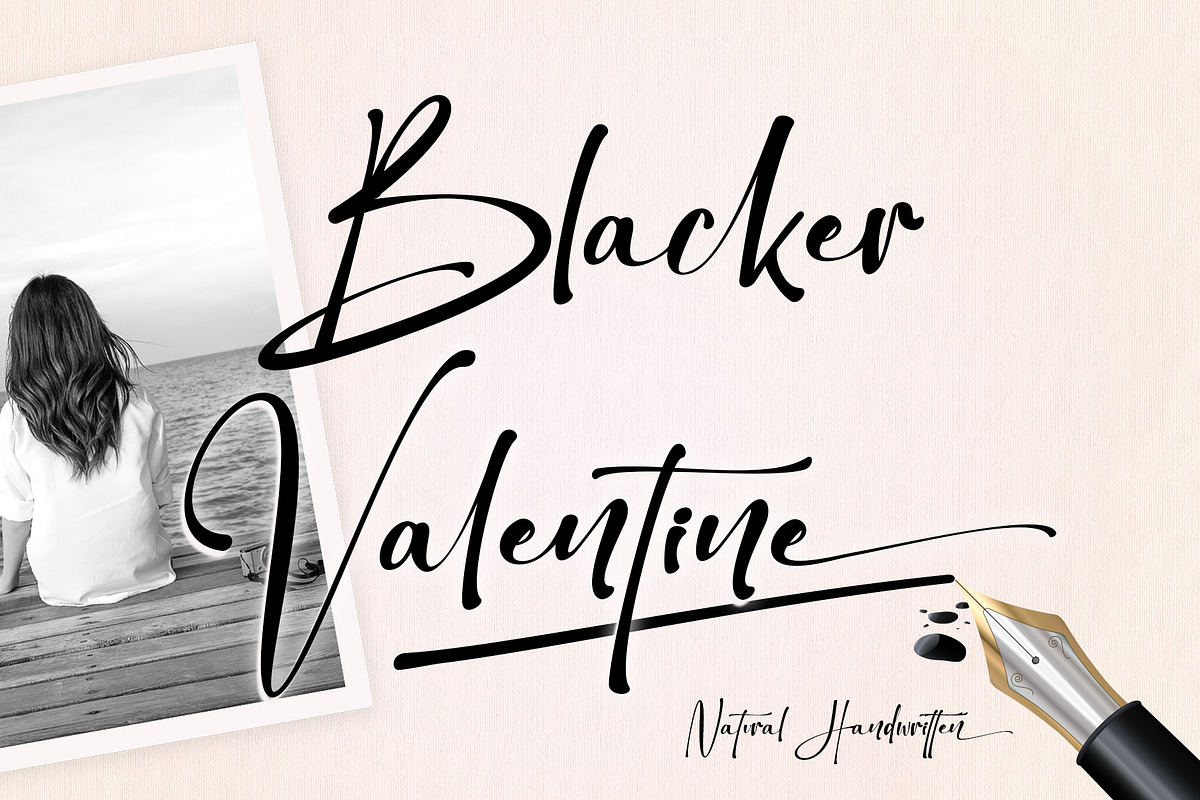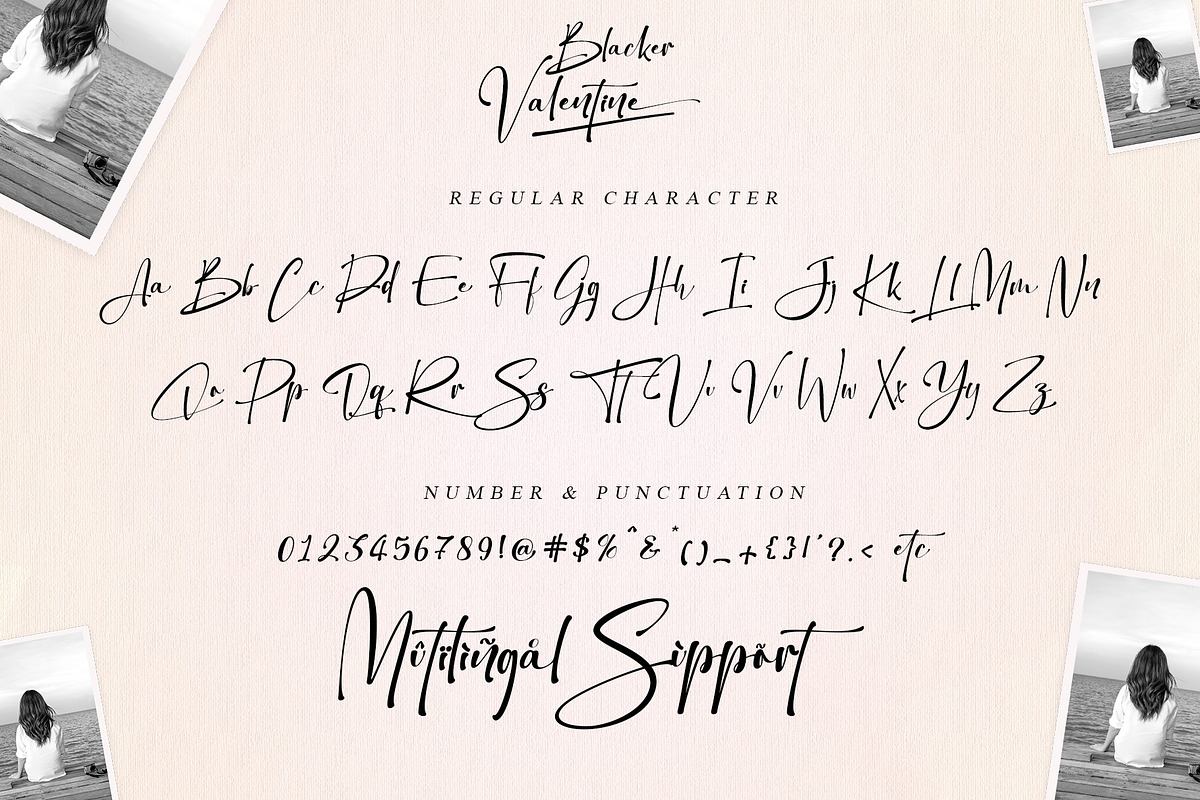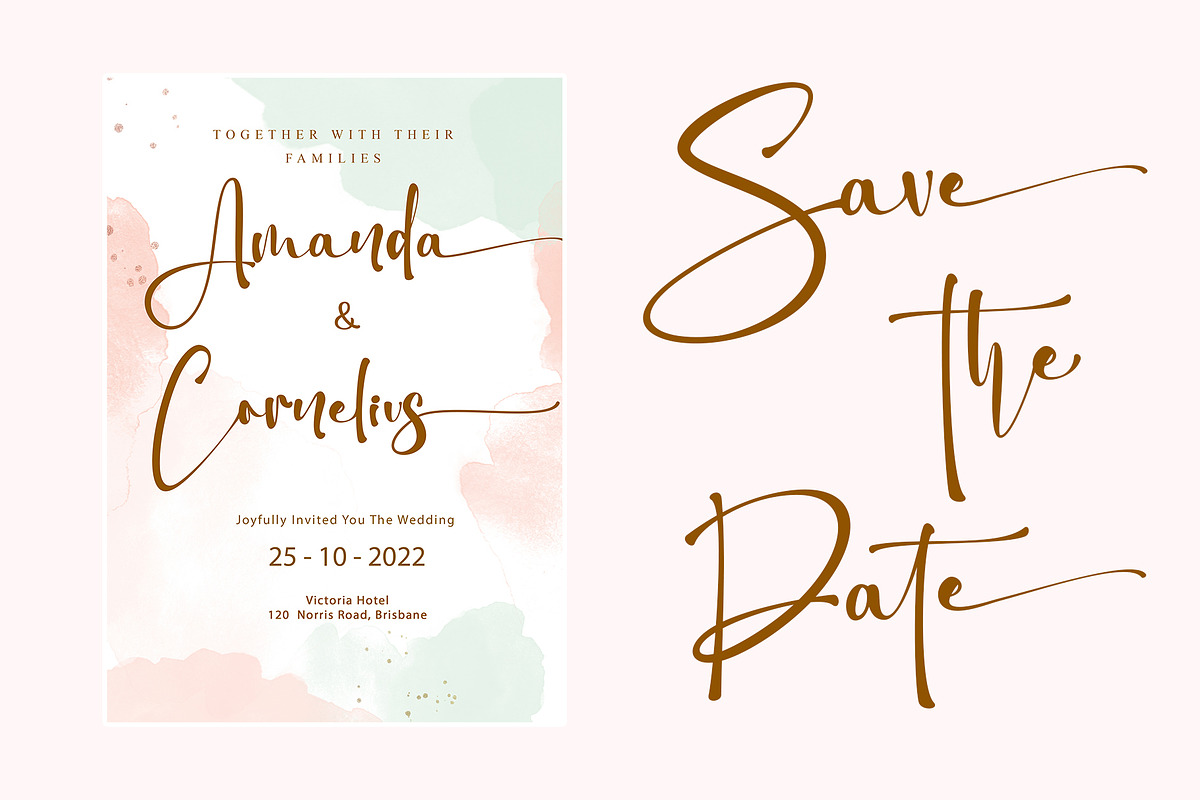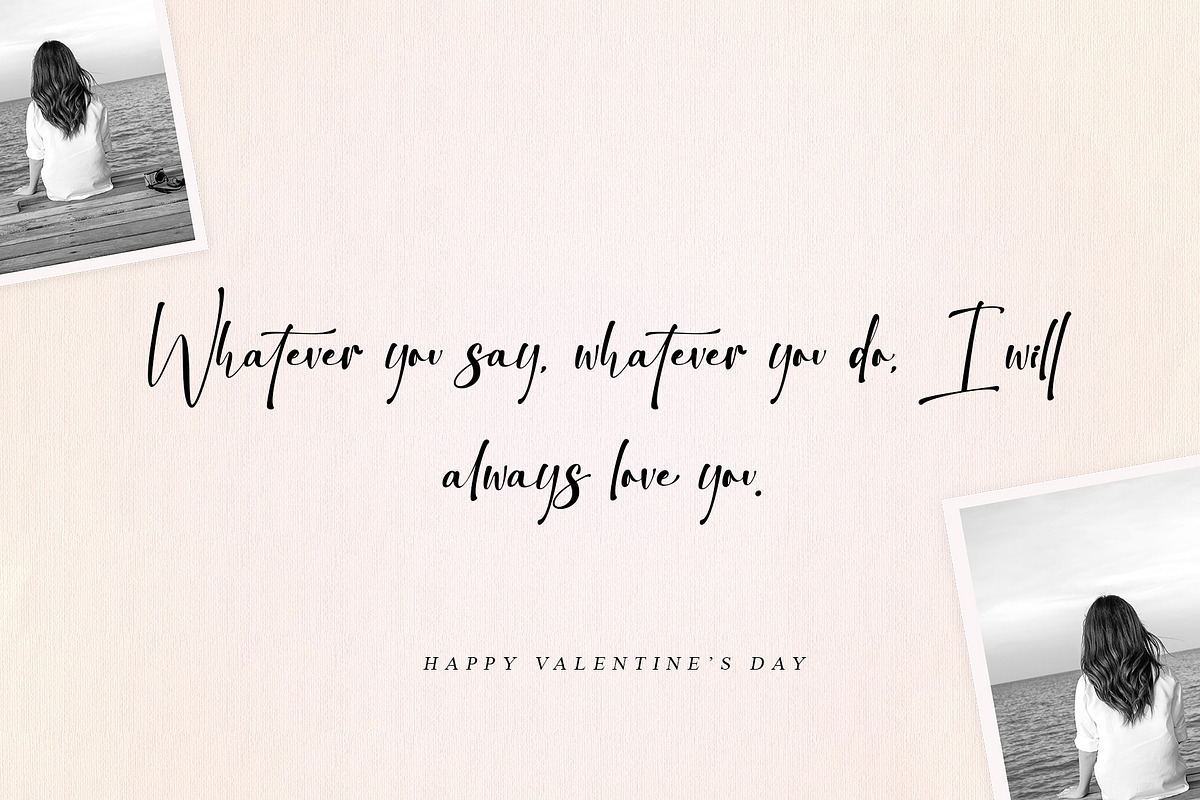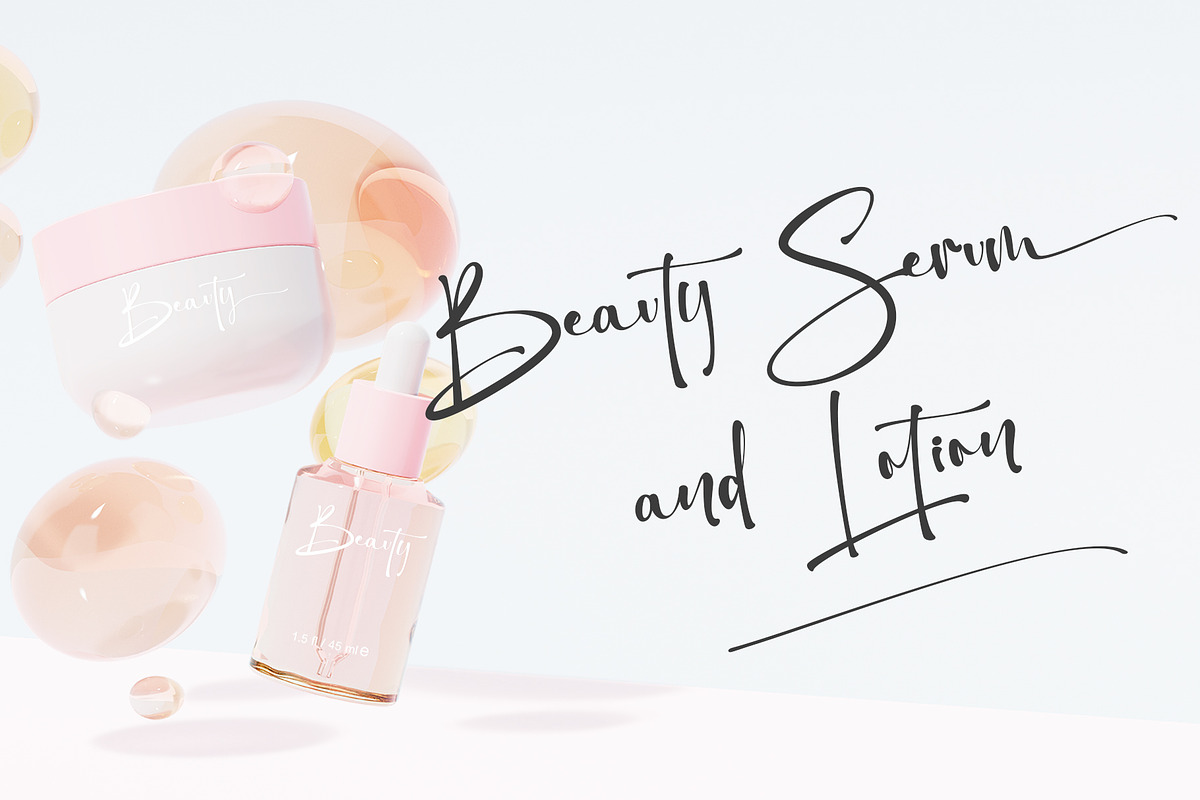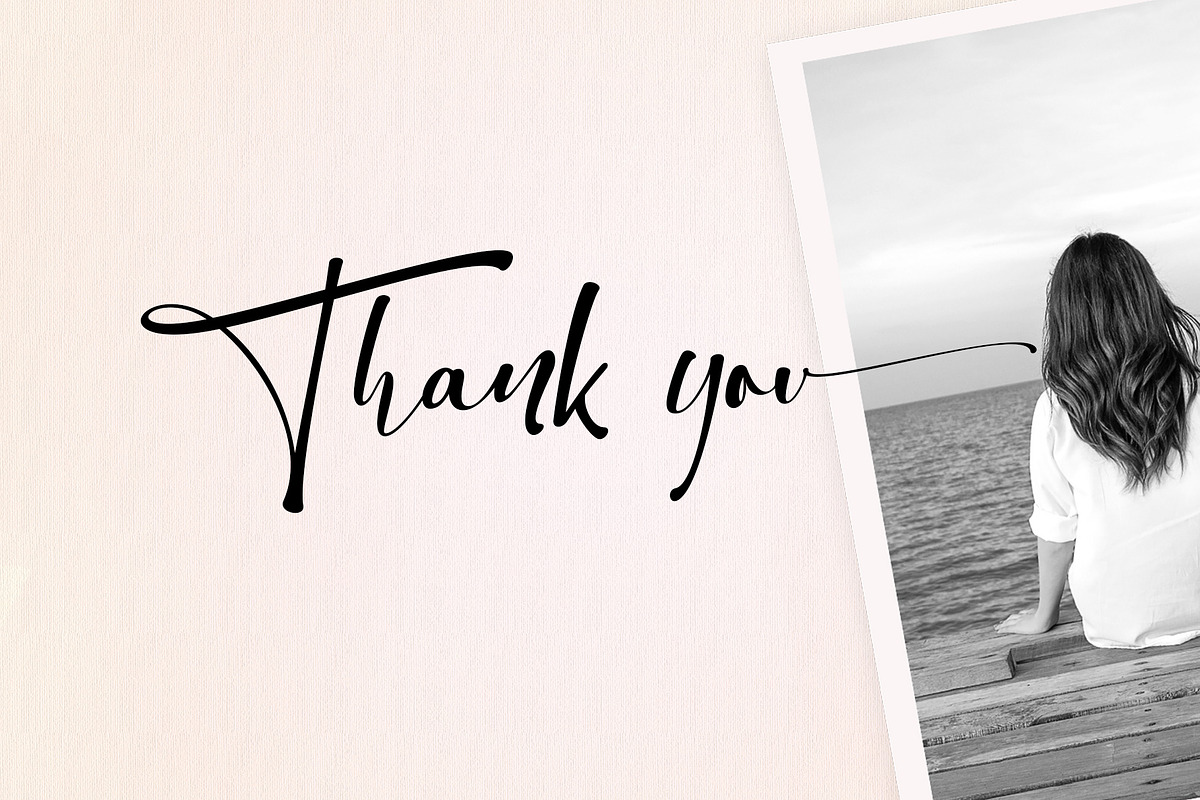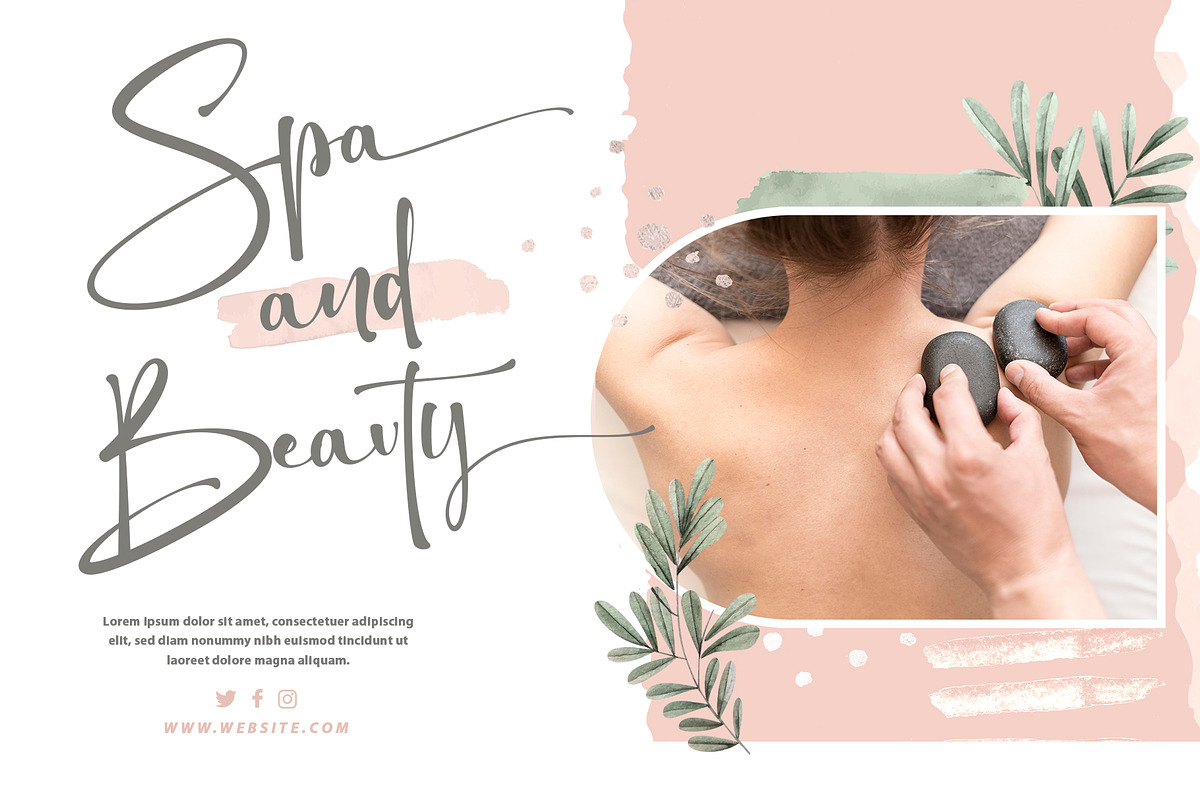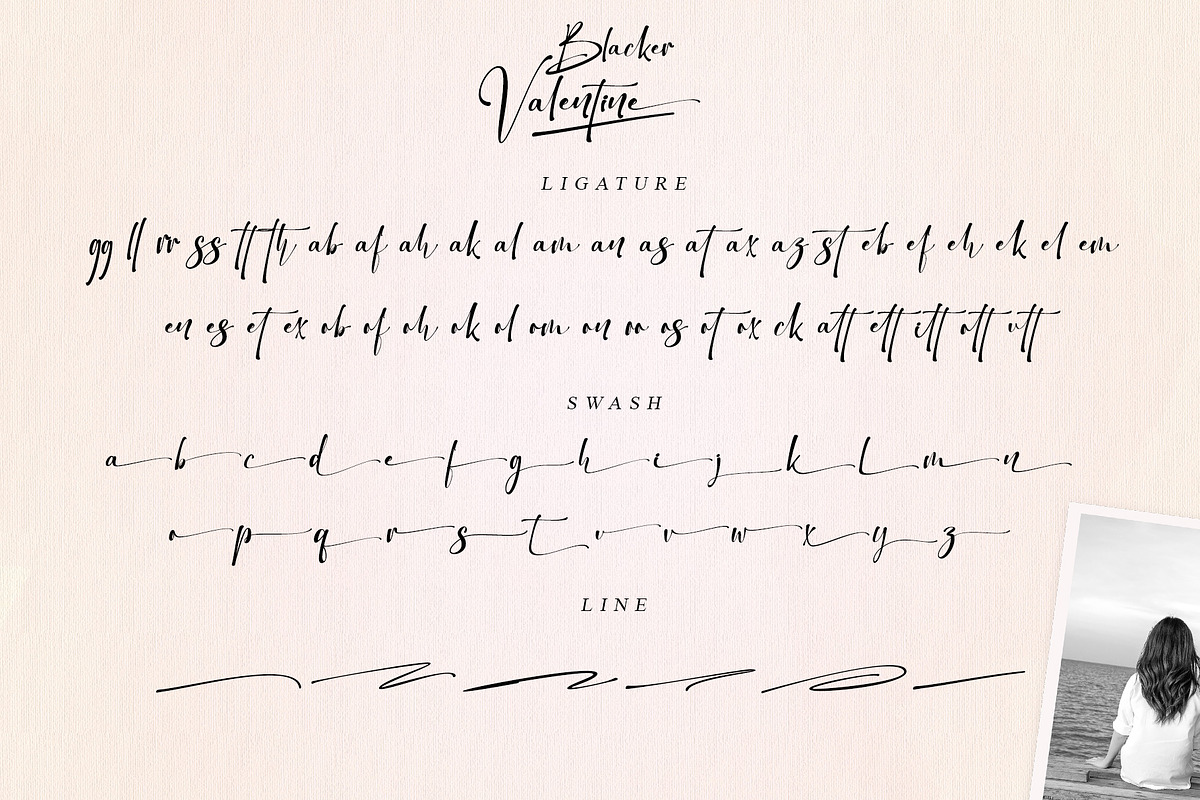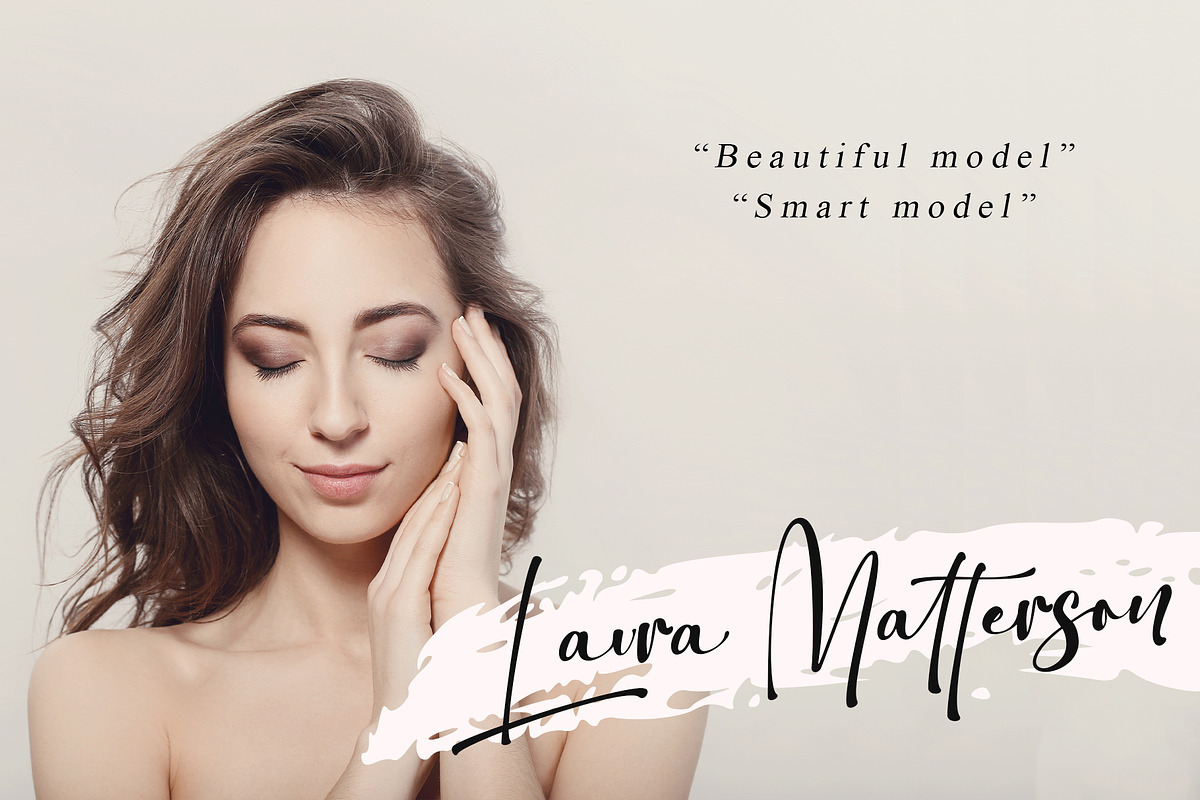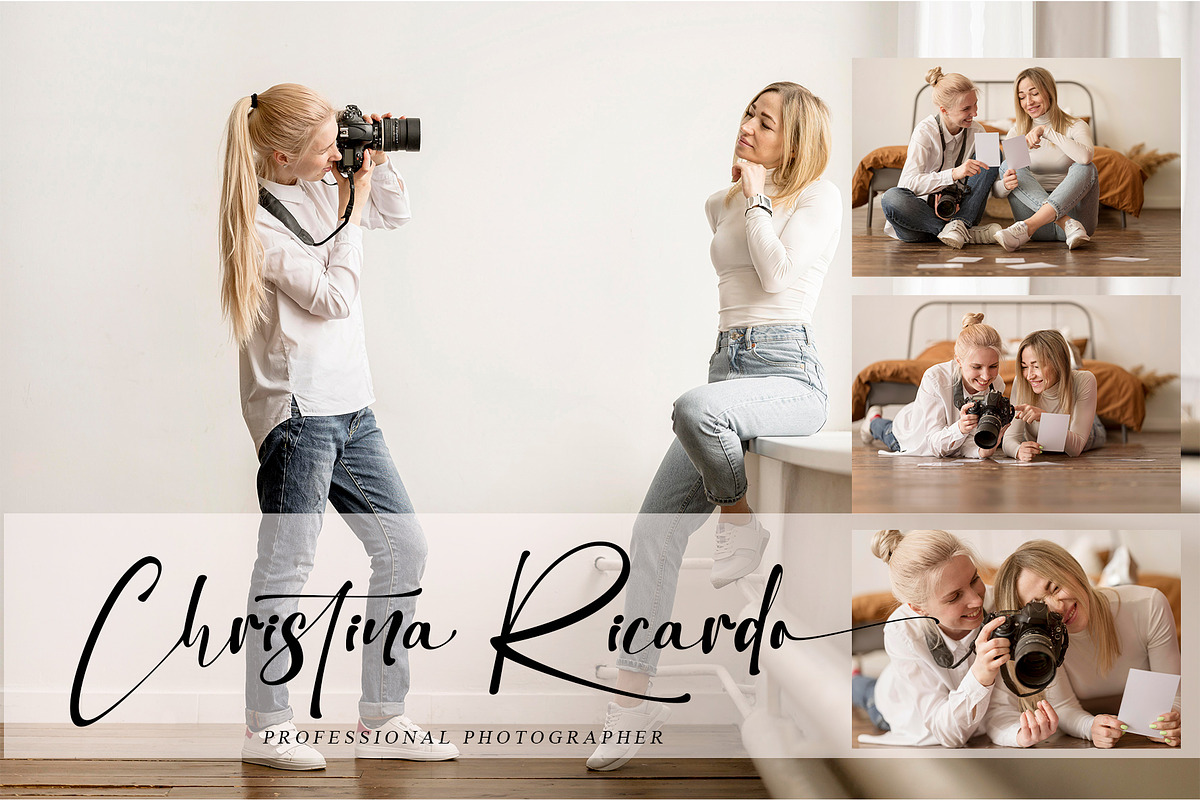
Blacker Valentine
Blacker Valentine is an elegant handwritten font that is simple and unique looking. This customizable font will look great on a variety of design ideas such as Christmas themes, valentine's, posters, invitations, weddings, branding projects, social media posts, magazines, book covers, and more! This will add a fun and friendly touch to any of your projects. This font is PUA encoded which means you can access all glyphs and sweeps easily.
- Support multilingual; ä ö ü Ä Ö Ü ß ¿ ¡
- lowercase and uppercase letters
- Line, Swash & ligature